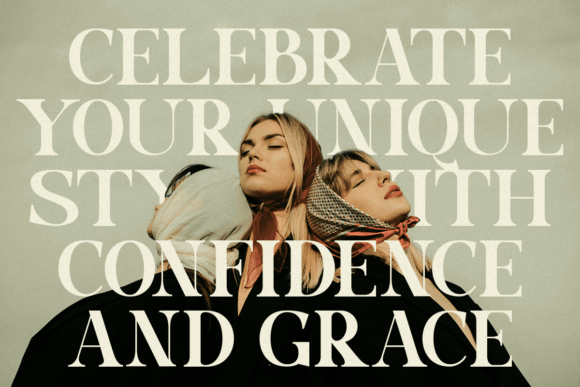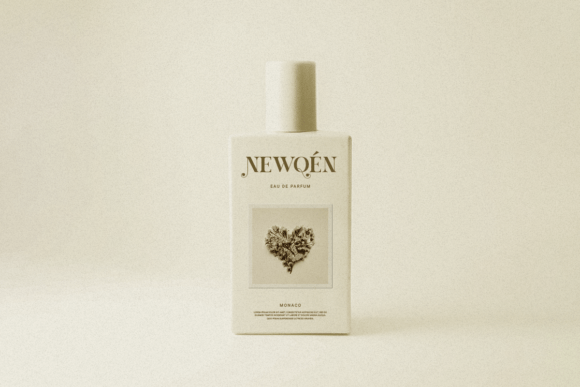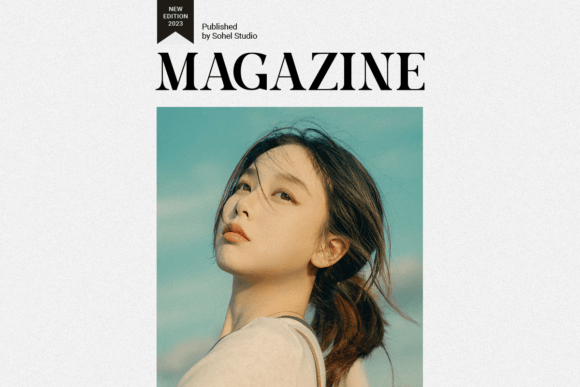
Introduction to Rogue Korner Font
Have you ever found yourself rummaging through old trunks in your attic, unearthing forgotten treasures and nostalgic memories? For designers, a similar creative spark can strike when browsing through a vast library of fonts, searching for the perfect one to bring their project to life. For those seeking a unique touch, look no further than the Rogue Korner Font – a stunning retro display serif font that exudes classic charm and bold character.
This beautiful font is more than just a design resource; it’s a high-quality addition to any creative project, perfect for adding a touch of sophistication and nostalgia to your designs. Whether you’re working on a poster, logo, packaging, or promotional materials, the Rogue Korner Font is sure to captivate viewers with its retro allure and distinctiveness. And with its PUA encoded design, you can easily access all the amazing glyphs and ligatures to take your designs to the next level.
Key Features of Rogue Korner Font
- Unique, distressed texture design suitable for creative projects
- Designed as a versatile design resource for a wide range of creative applications, including graphics, logos, and more
- Perfect for designers and artists seeking a unique, high-quality font for their next creative project
Honest Review: Rogue Korner Font
I recently had the opportunity to work with the Rogue Korner Font, and I must say it’s been a game-changer for my creative project. The font is a free download, which is always a plus for designers on a budget.
One of the standout features of this font is its ability to be used with a transparent background, making it perfect for overlaying text on top of images. This is a huge design resource for anyone working on projects that require a lot of visual interest.
Here are some of the things that work well with the Rogue Korner Font:
- High-quality design that looks great at any size
- Wide range of applications, from body text to headings
- Easy to read and understand, even in complex layouts
However, there are a few limitations to be aware of:
- Only available in a few different weights, which may limit its versatility
- Not suitable for use in very small sizes, where it can become difficult to read
Overall, I’m very impressed with the Rogue Korner Font and would highly recommend it to any designer looking for a high-quality design resource.
To get the most out of the Rogue Korner Font, use it on a transparent background for a more creative and professional look. This design resource is perfect for any creative project that requires a unique and eye-catching font.
The Rogue Korner Font is ideal for use in logo design, branding, and marketing materials. Its high-quality design makes it a great addition to any design project, and its free download makes it an accessible design resource for everyone.
Is the Rogue Korner Font a design resource?
Yes, the Rogue Korner Font is a high-quality design resource that can be used for a wide range of creative projects, including graphic design, digital art, web design, and more. Its unique style and transparent background make it an ideal choice for designers looking to add a touch of elegance and sophistication to their work.